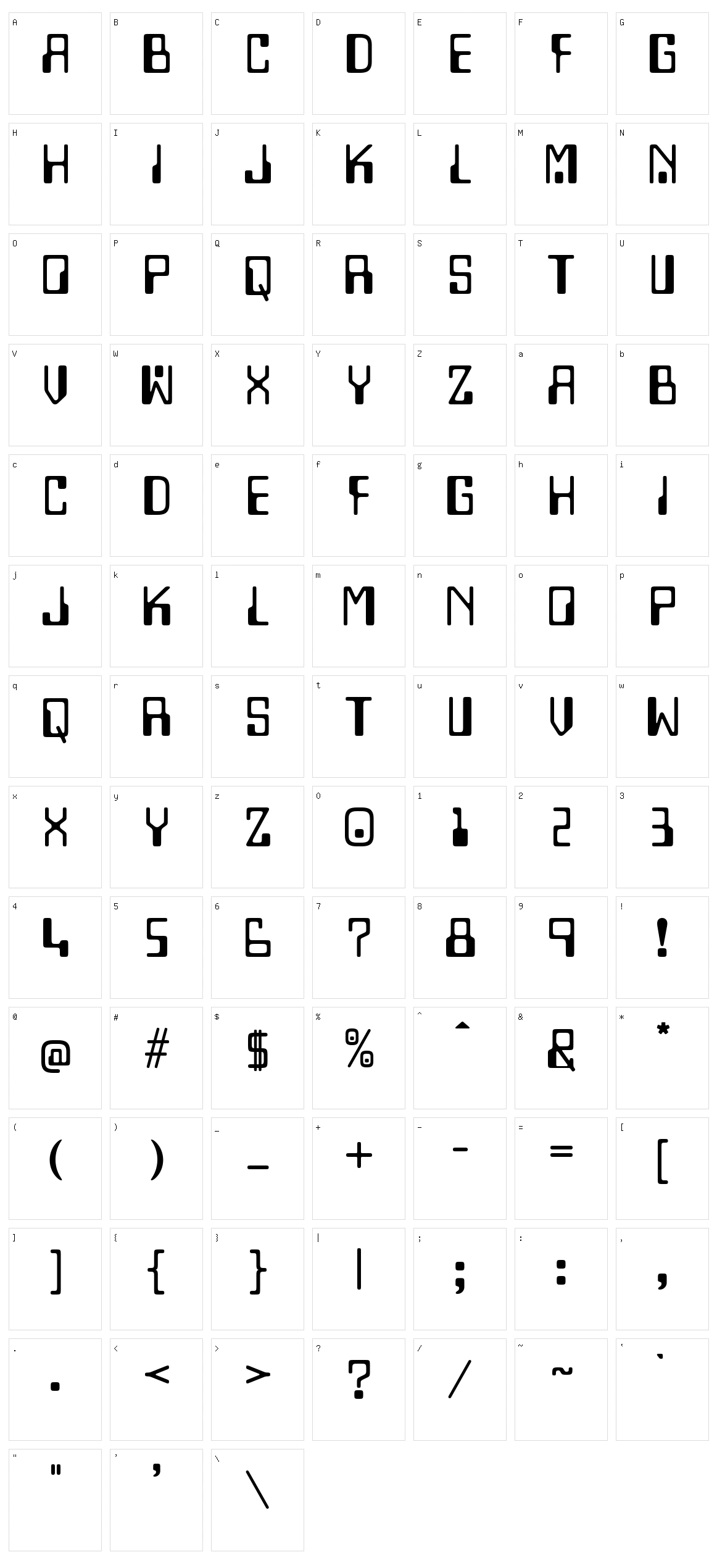
Lazenby Computer
Designed by: Disaster Fonts
LAZENBY COMPUTER
From-scratch redraw, and massive character expansion of a famous font face with many names.
Created 2014 by Andrew Young, Disaster Fonts.